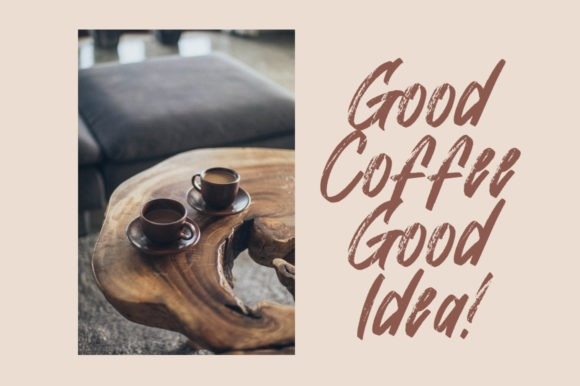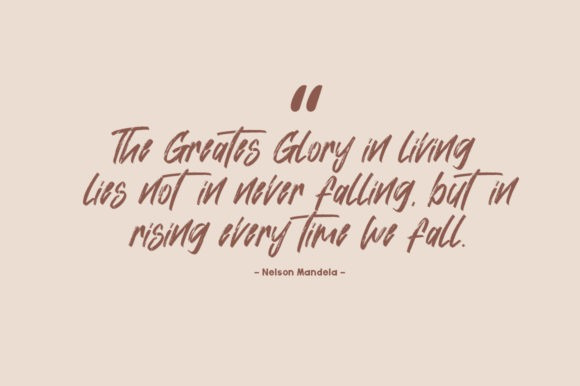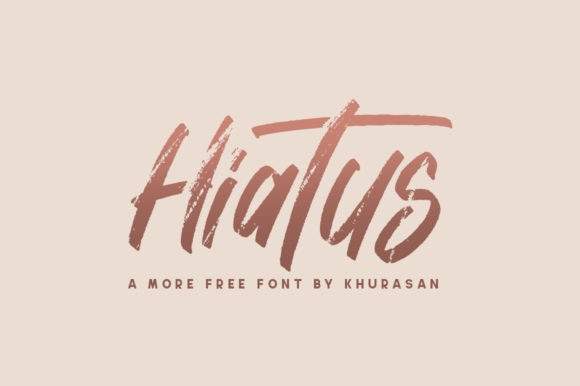
Hiatus Font is a modern brushed handwritten font with a casual feel. Use it for ads, logos, branding or any other design that requires a cool look!
| Designer Name: | Khurasan |
| Classification: | Brush Fonts, Script Fonts |